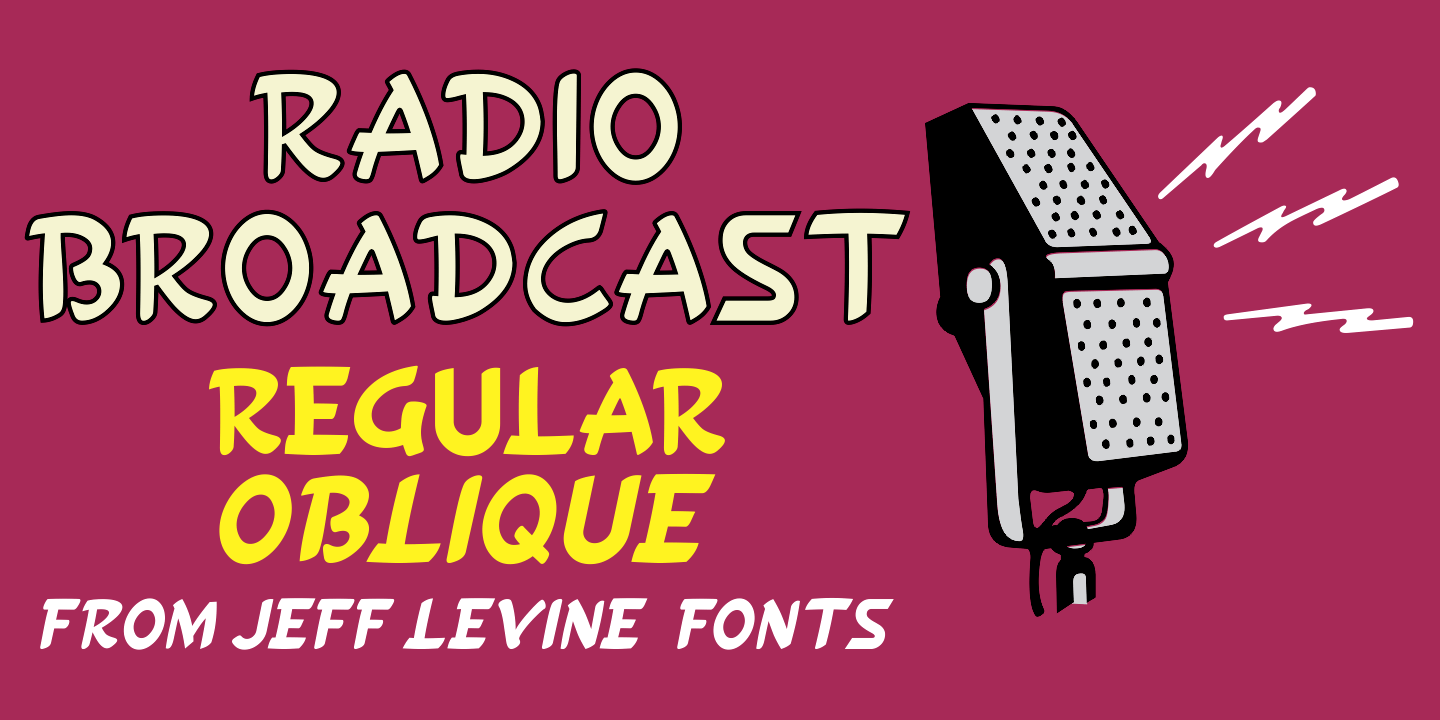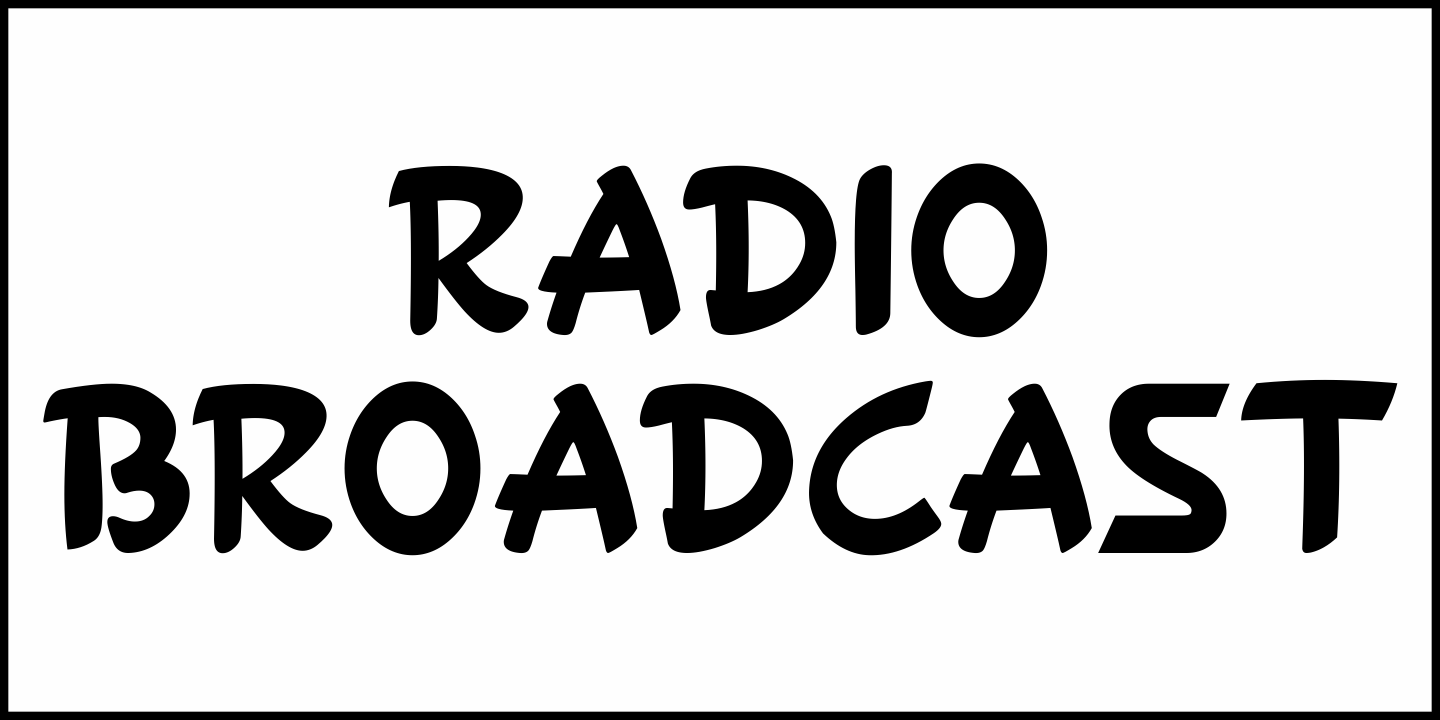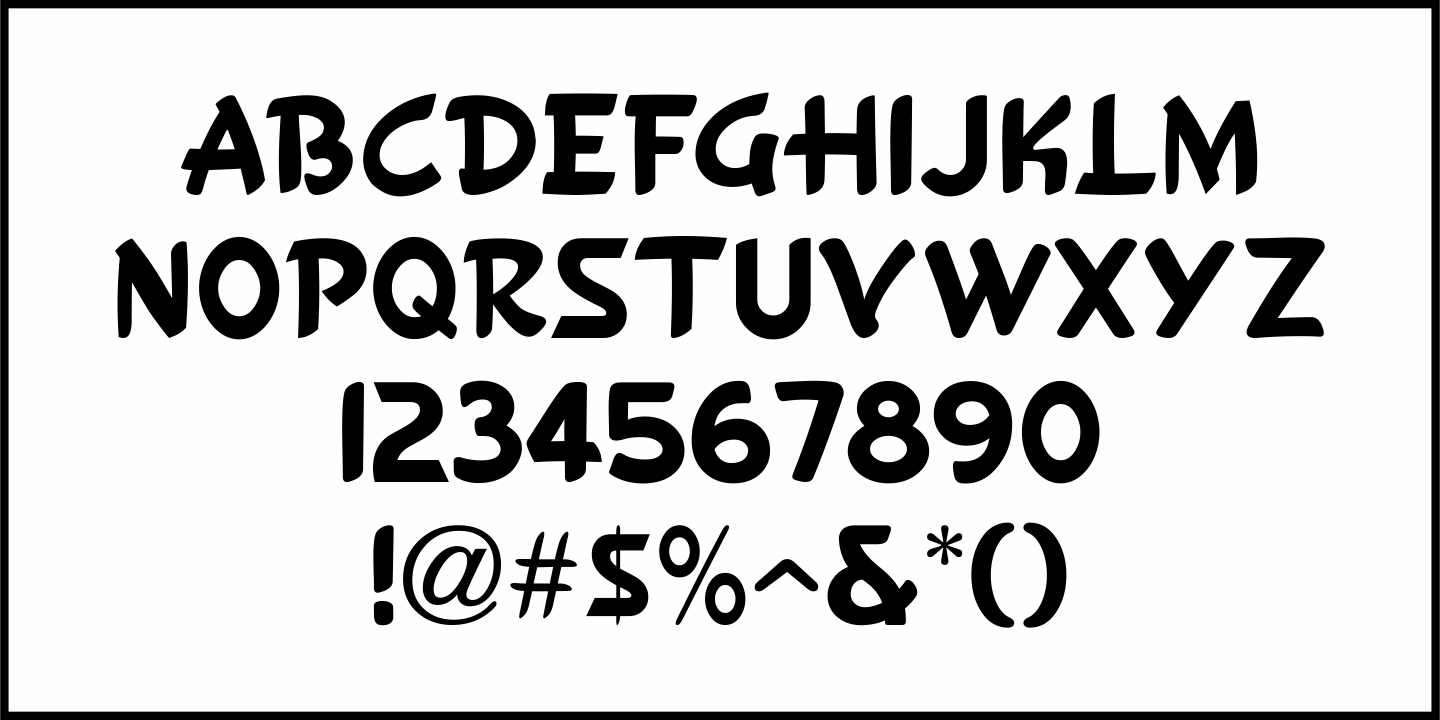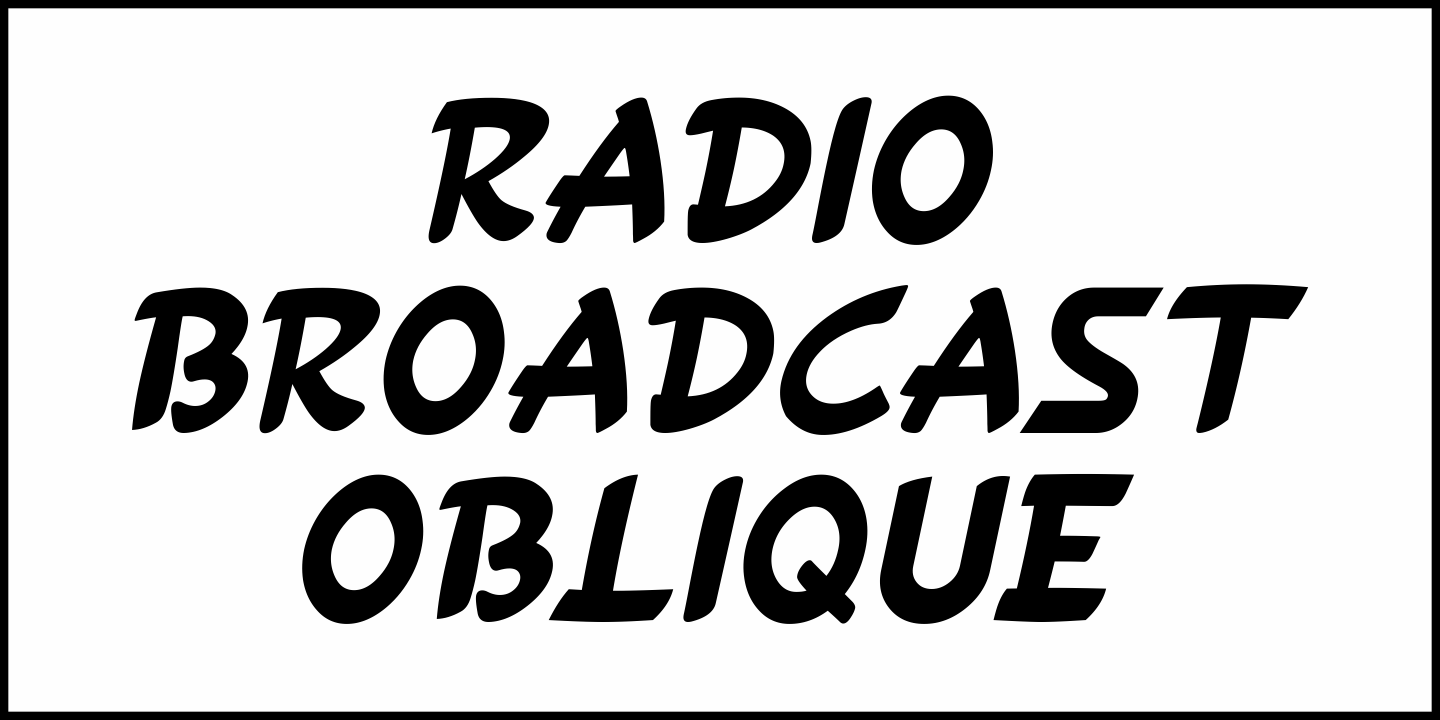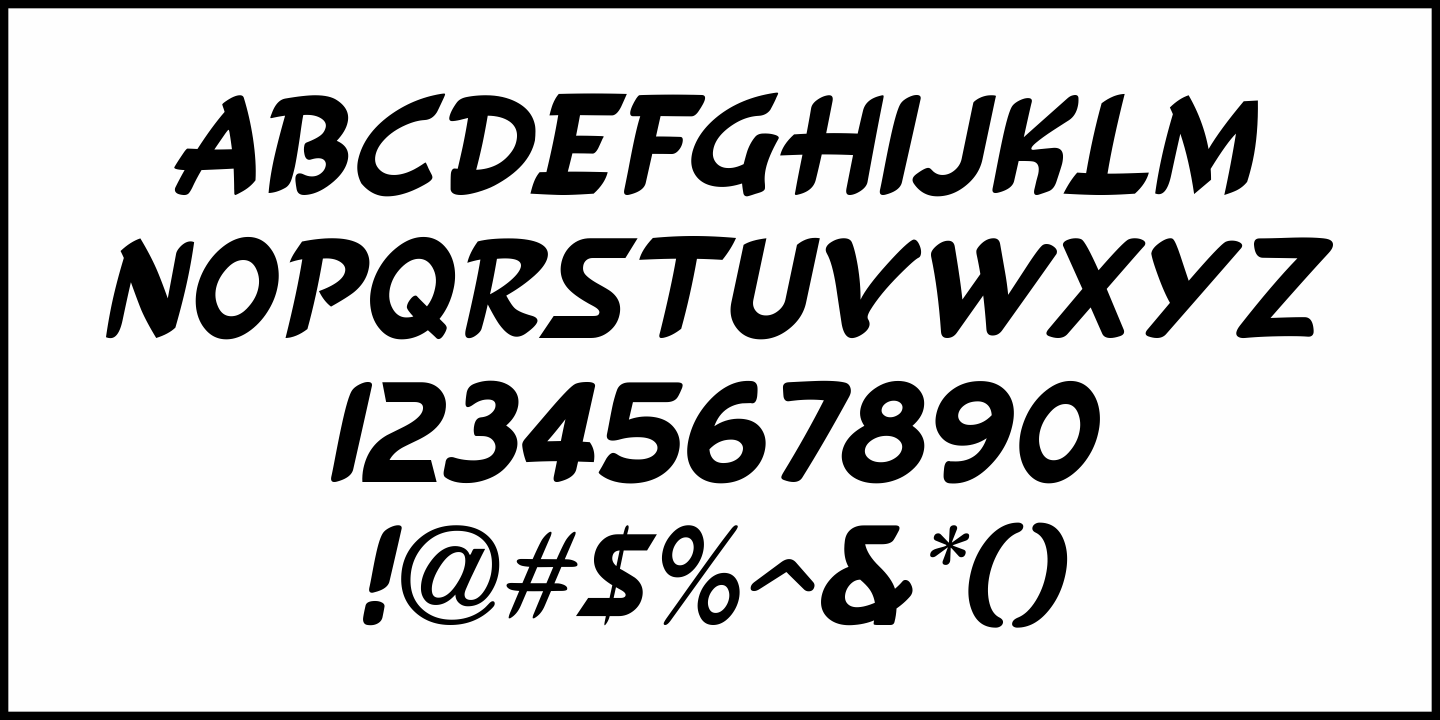
Radio Broadcast
An interesting hand lettered sans serif type style with a 'brush stroke' feel was used for various article headlines in the October, 1938 issue of 'Radio Stars' magazine.
This is now available digitally as Radio Broadcast JNL, in both regular and oblique versions.